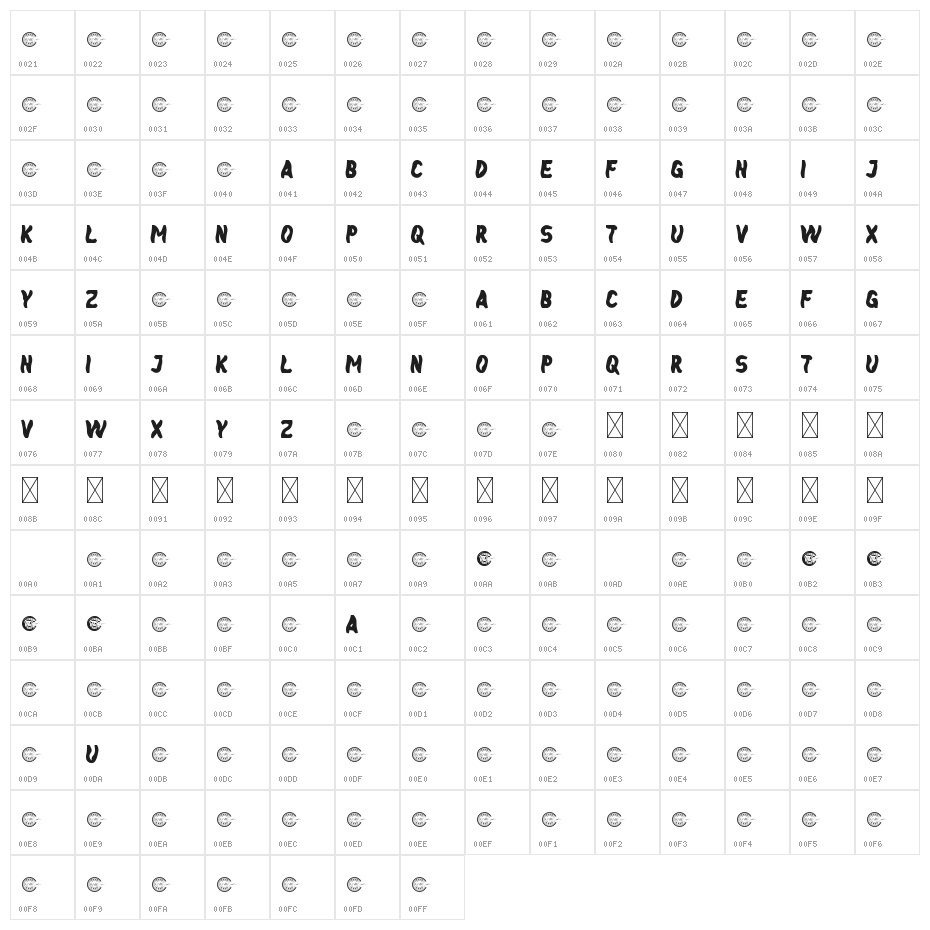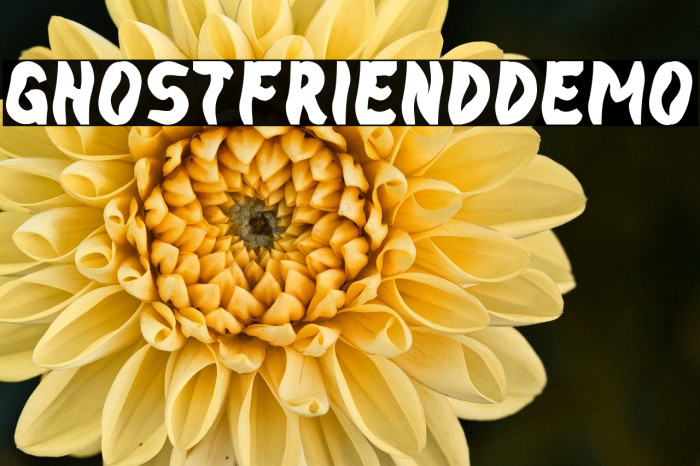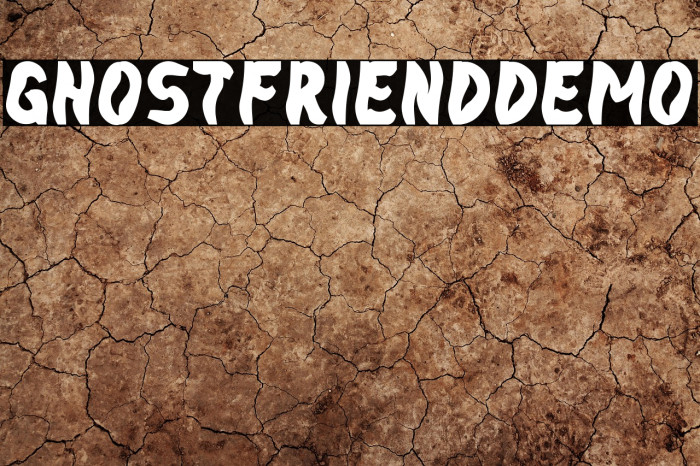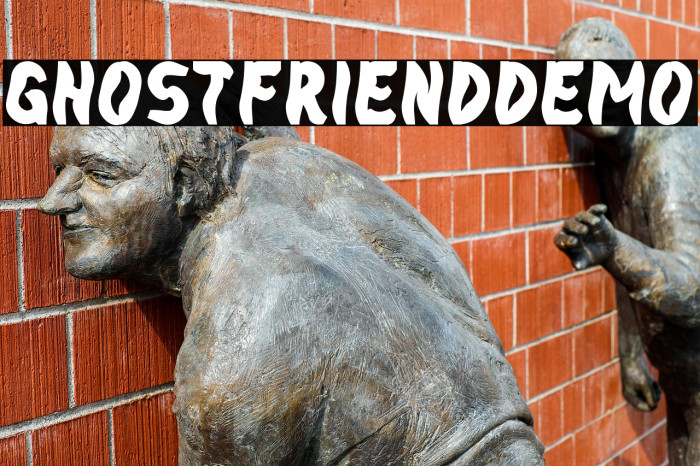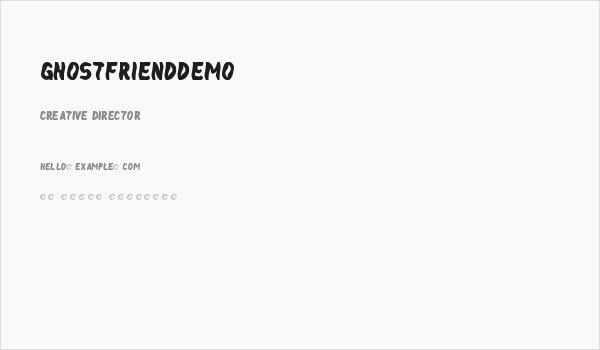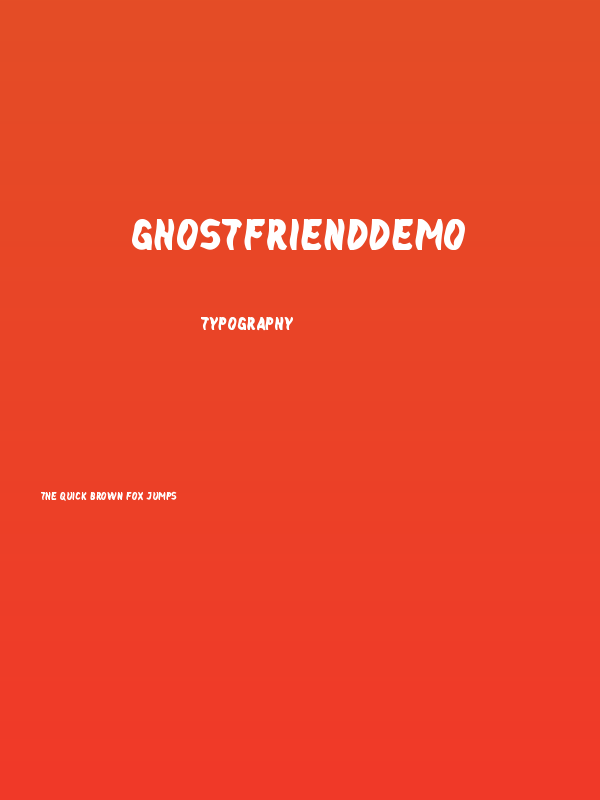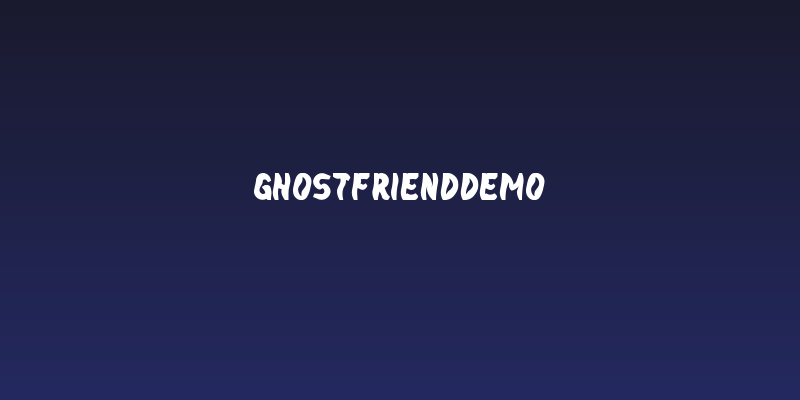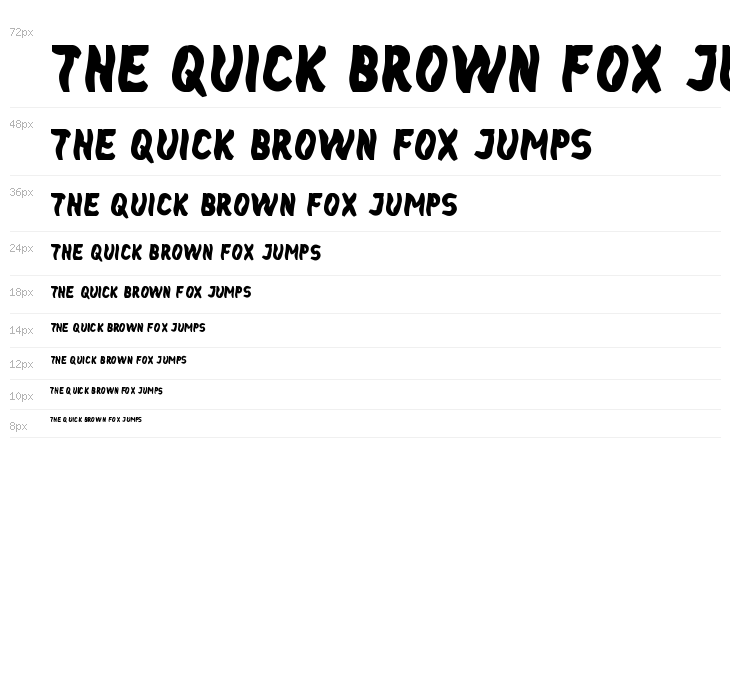
GhostFriendDemo Font
GhostFriendDemo Description
This font features a bold and playful design with a handwritten style that exudes a sense of fun and creativity. The characters are slightly irregular, giving it a casual and informal appearance. The strokes are thick and consistent, providing a strong visual impact. The uppercase and lowercase letters maintain a cohesive look, while the numbers and special characters complement the overall style. This font is ideal for projects that require a touch of personality and flair.
| Overall Style | Playful, Casual |
| Proposed Projects | Perfect for children's books, playful branding, greeting cards, and creative posters. |